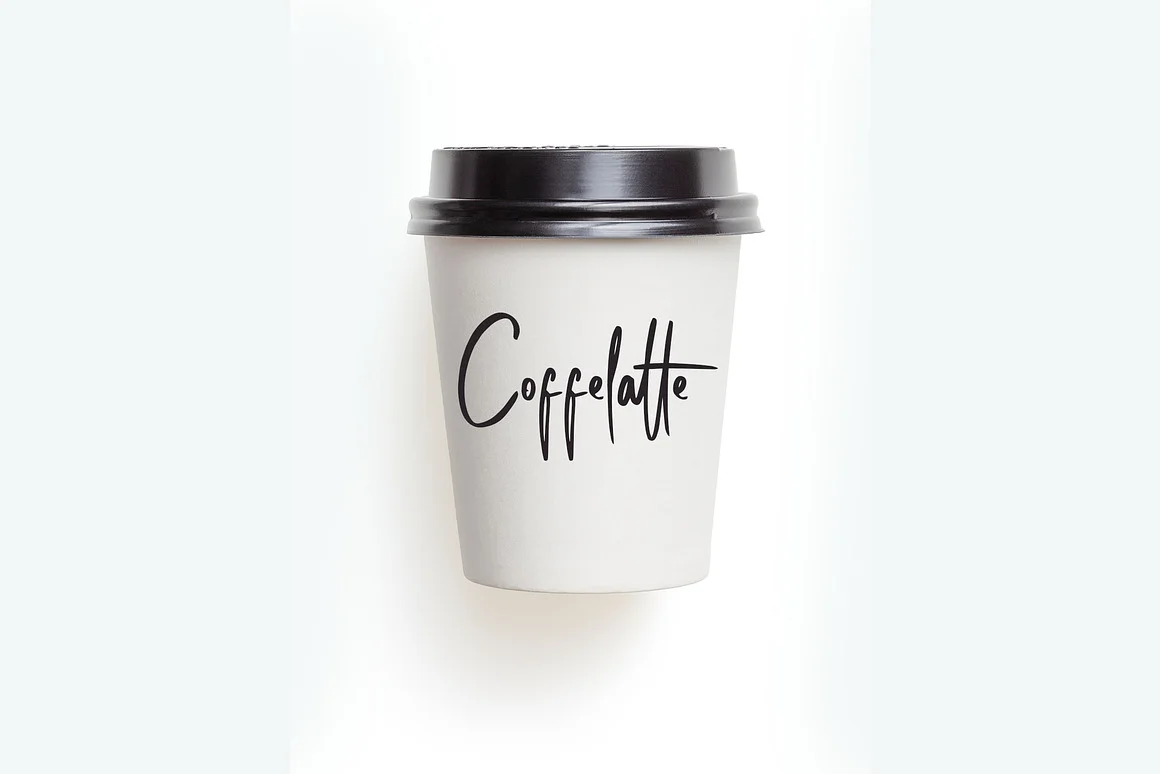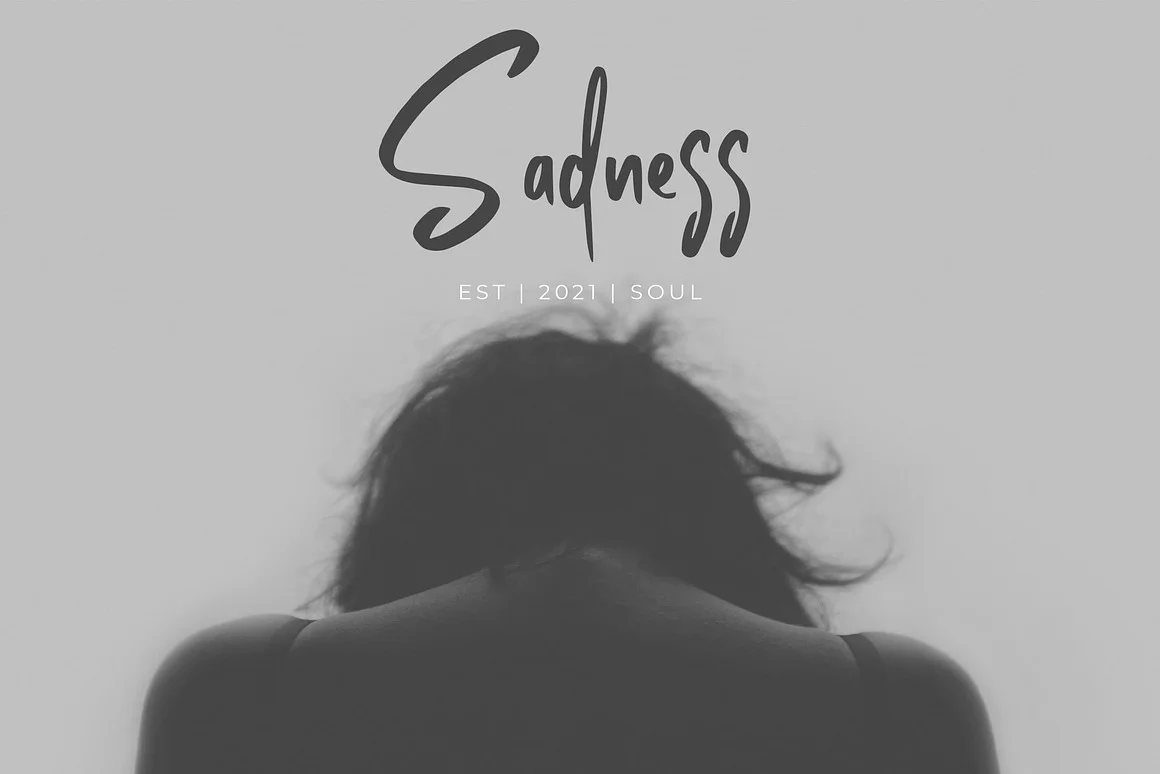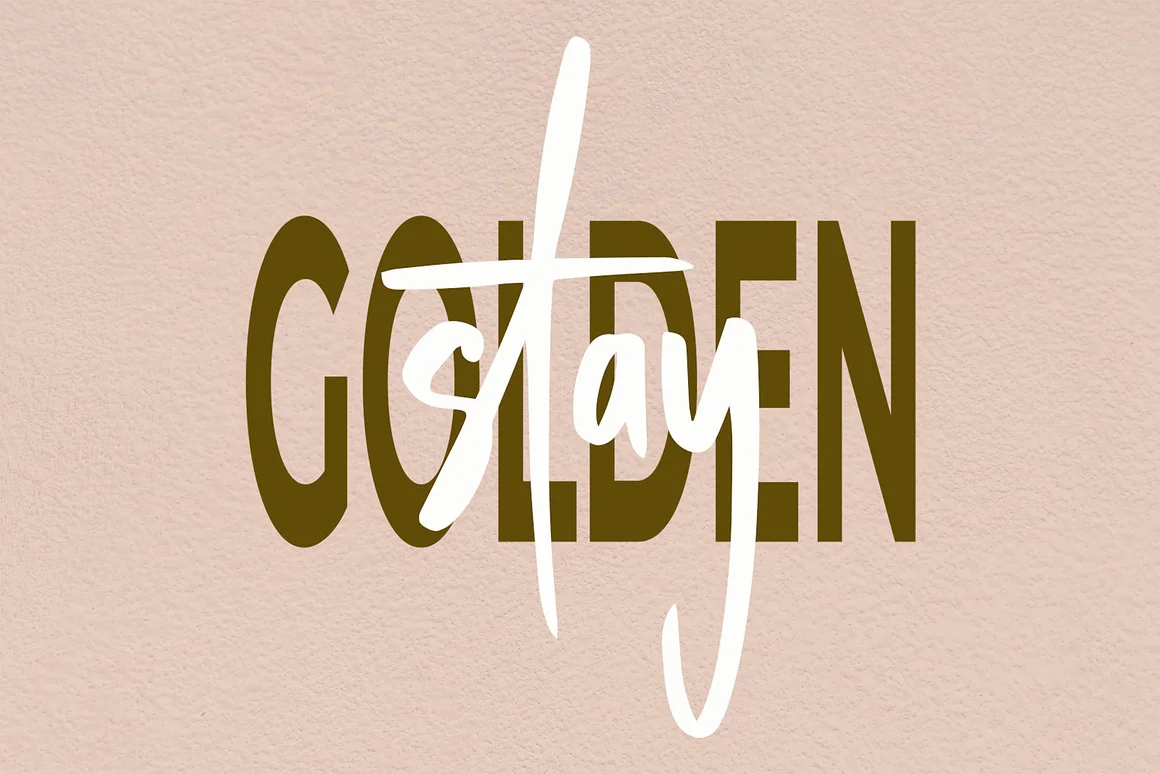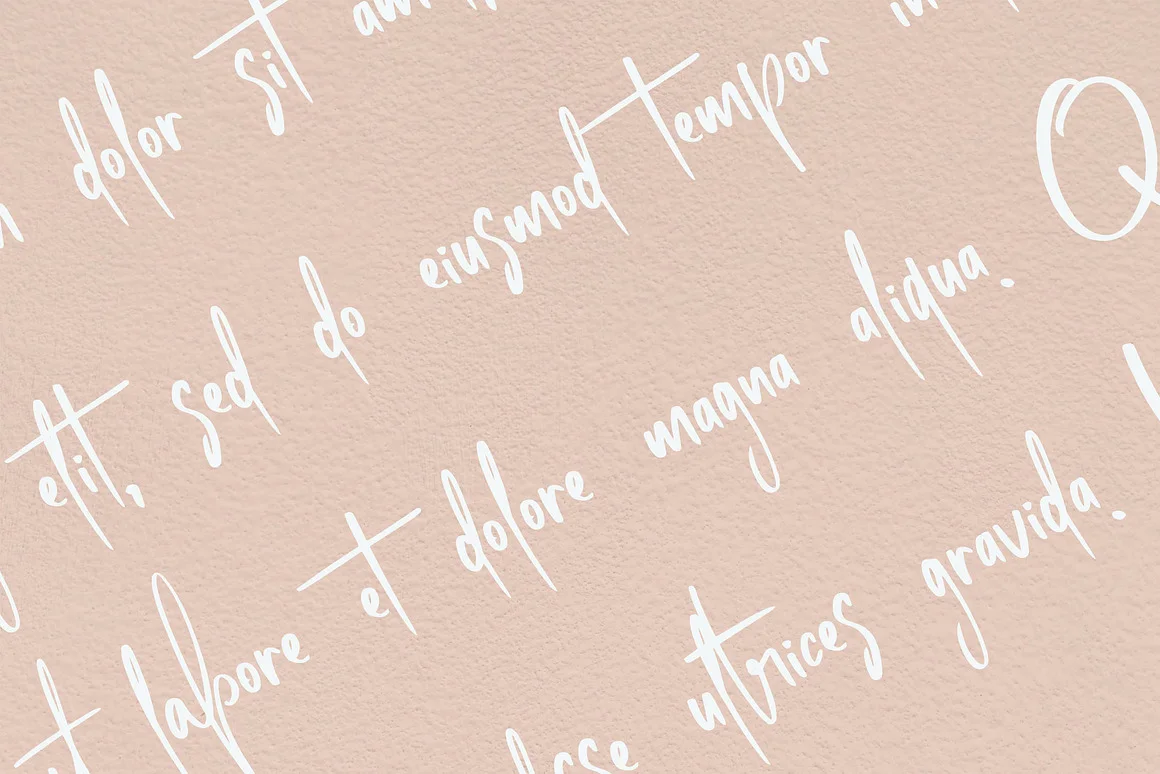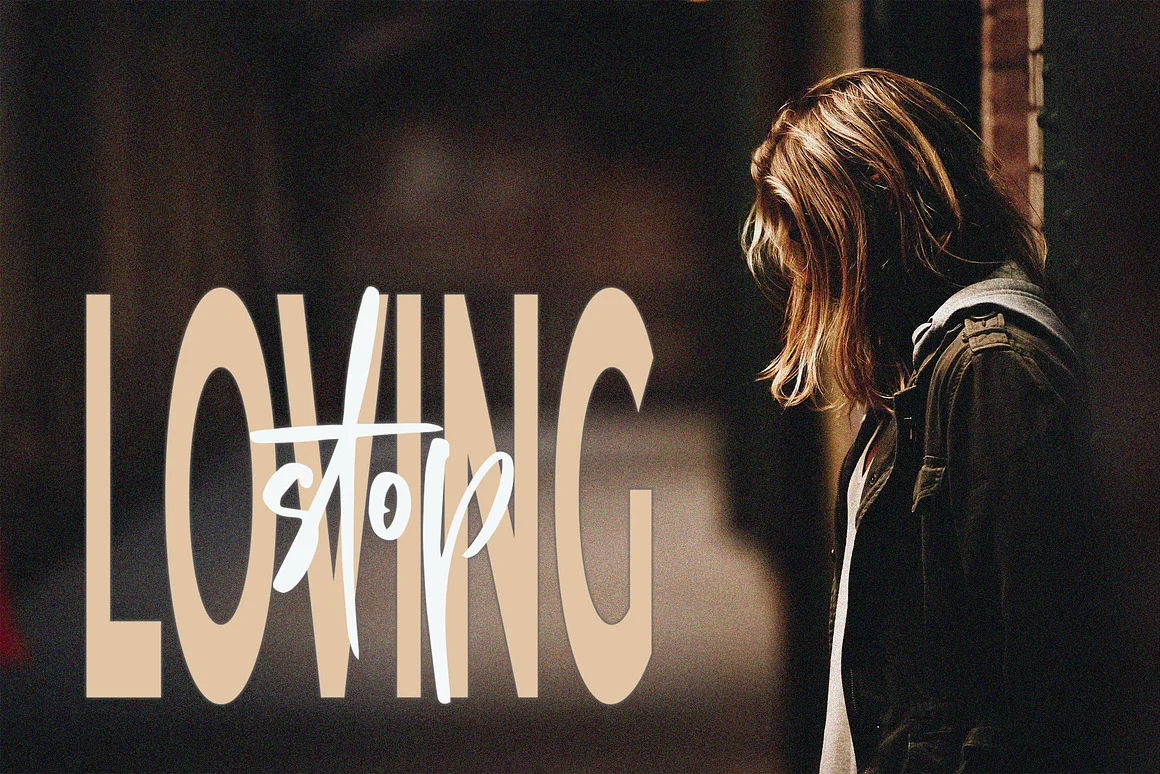
Mittanilla Handwriting Brush Font
Typography shapes perception at a subconscious level. Mittanilla Handwriting Brush leverages refined proportions and careful stroke modulation to make every composition feel considered. The typeface brings a loose, expressive brush sensibility to a broad range of creative disciplines, with versatility across print and screen contexts that holds up whether the work is print-first or screen-first.
In practice, Mittanilla Handwriting Brush proves particularly effective for yoga studios, environmental graphics, lifestyle brands, social media content, advertising campaigns. Designers reaching for it find that the type decisions feel resolved rather than laboured — a useful quality when client timelines are tight.
The range of applications extends to editorial layouts, social media graphics, craft brewery labels, wellness brands. That breadth is deliberate: the proportions and spacing were stress-tested across a wide range of mock briefs before the typeface was finalised.
Ink traps at stroke joins simulate the natural pooling of paint or ink, adding textural depth without the need for artificial distressing. The variation in stroke width across individual letterforms gives compositions a liveliness that purely digital type often lacks.
Mittanilla Handwriting Brush sits comfortably alongside both classic and contemporary typefaces in multi-font hierarchies. It takes direction rather than competing for attention — a quality that experienced designers know is harder to find than it appears.
Freelance designers across print and digital disciplines find Mittanilla Handwriting Brush a reliable choice for projects that demand both personality and restraint. The design avoids the self-conscious quirkiness that dates quickly, settling instead for considered distinctiveness that holds up over time.